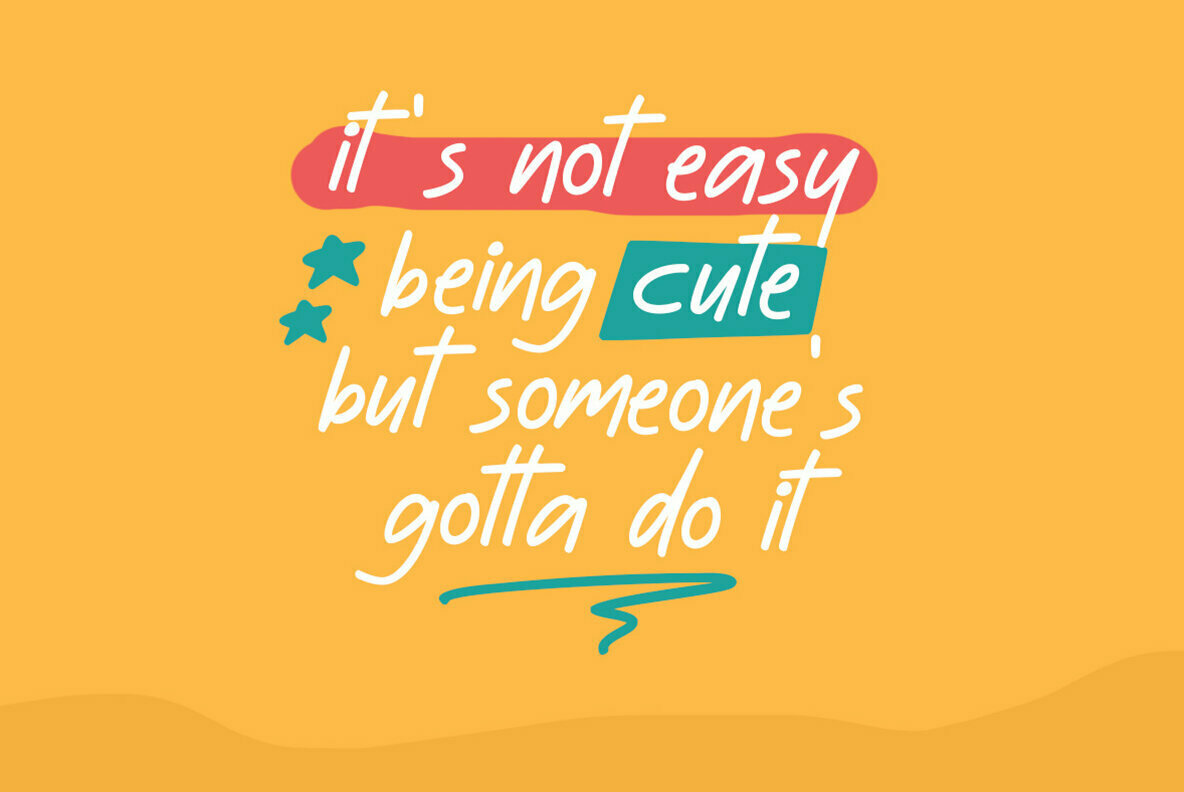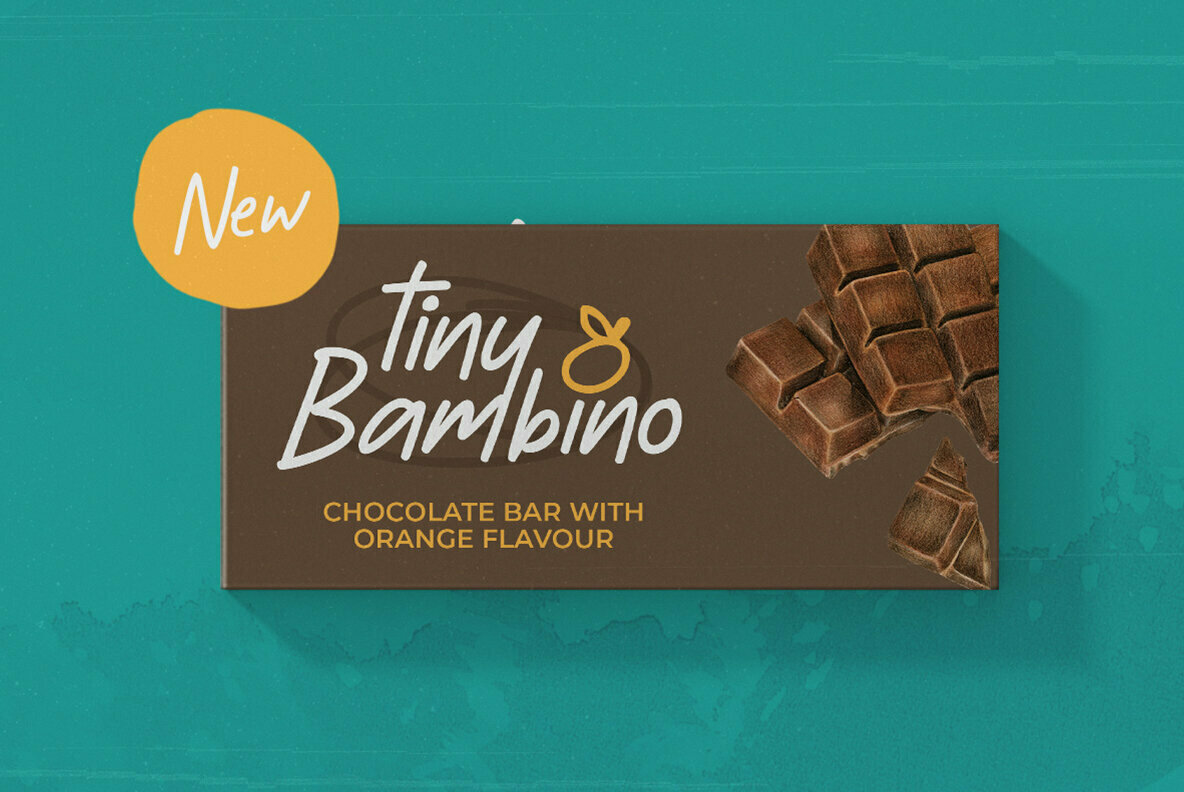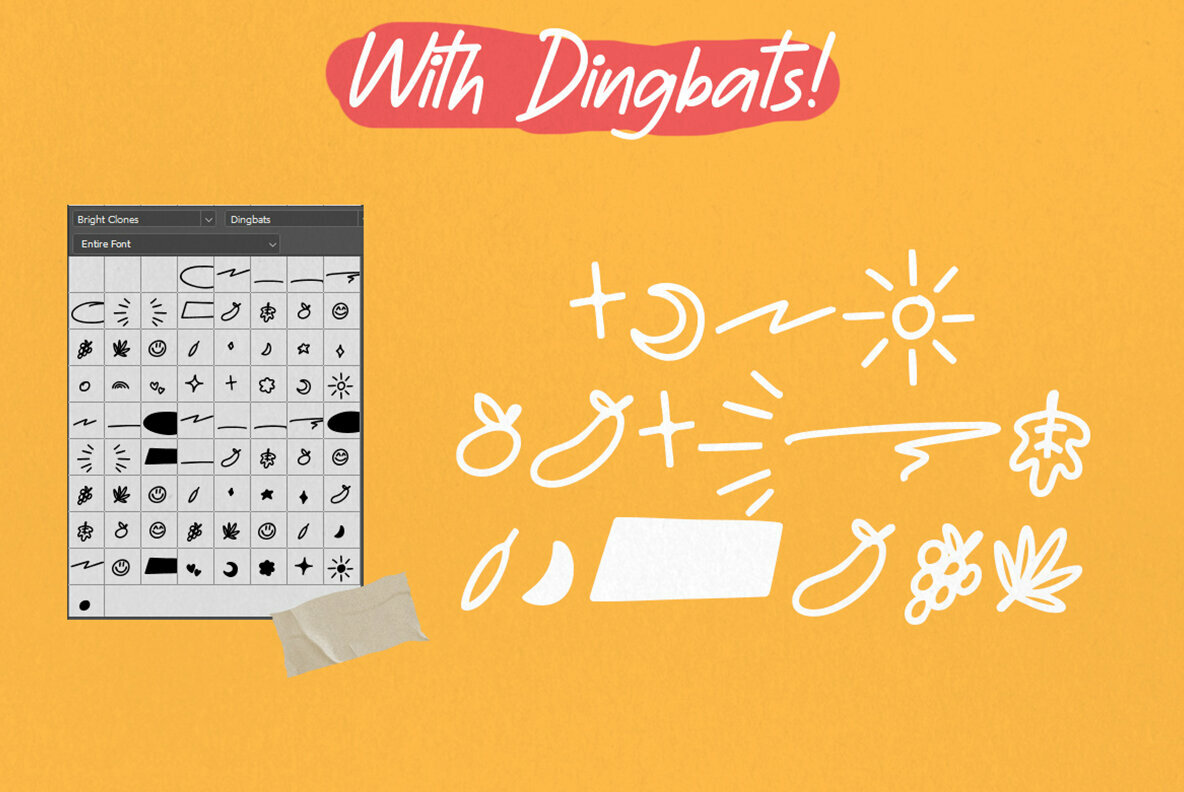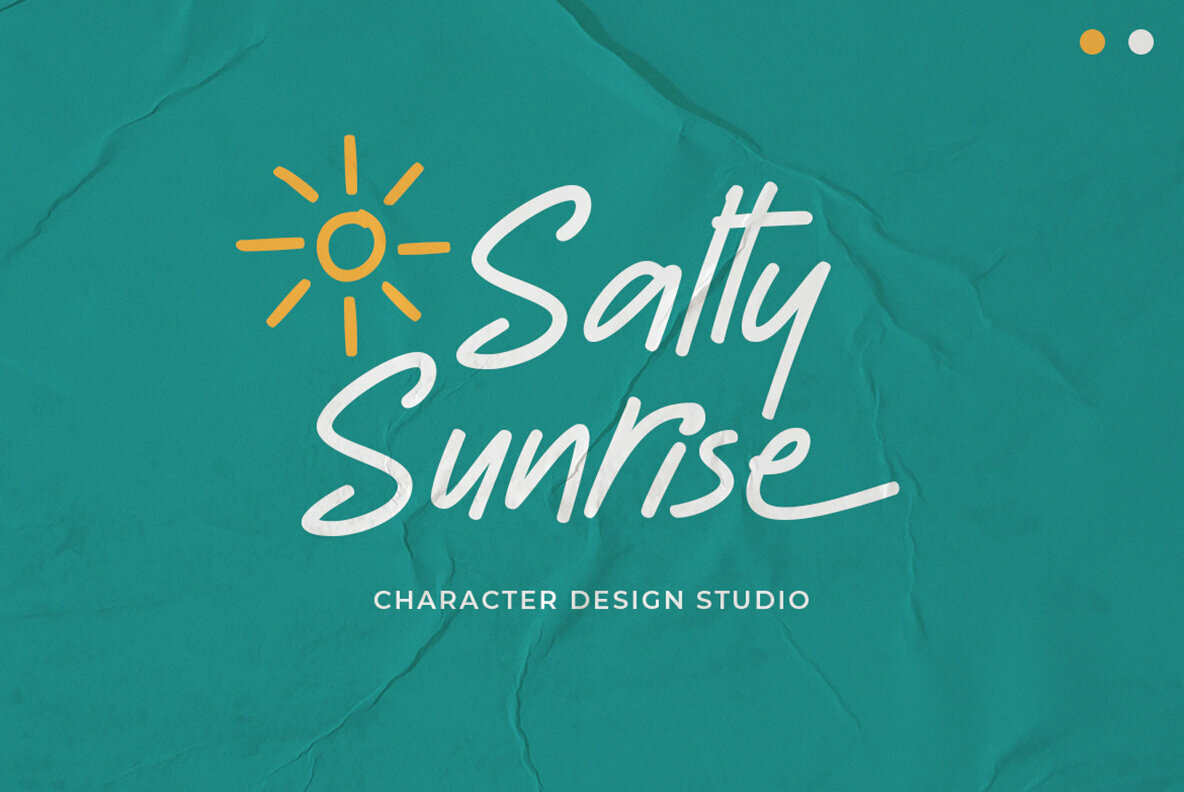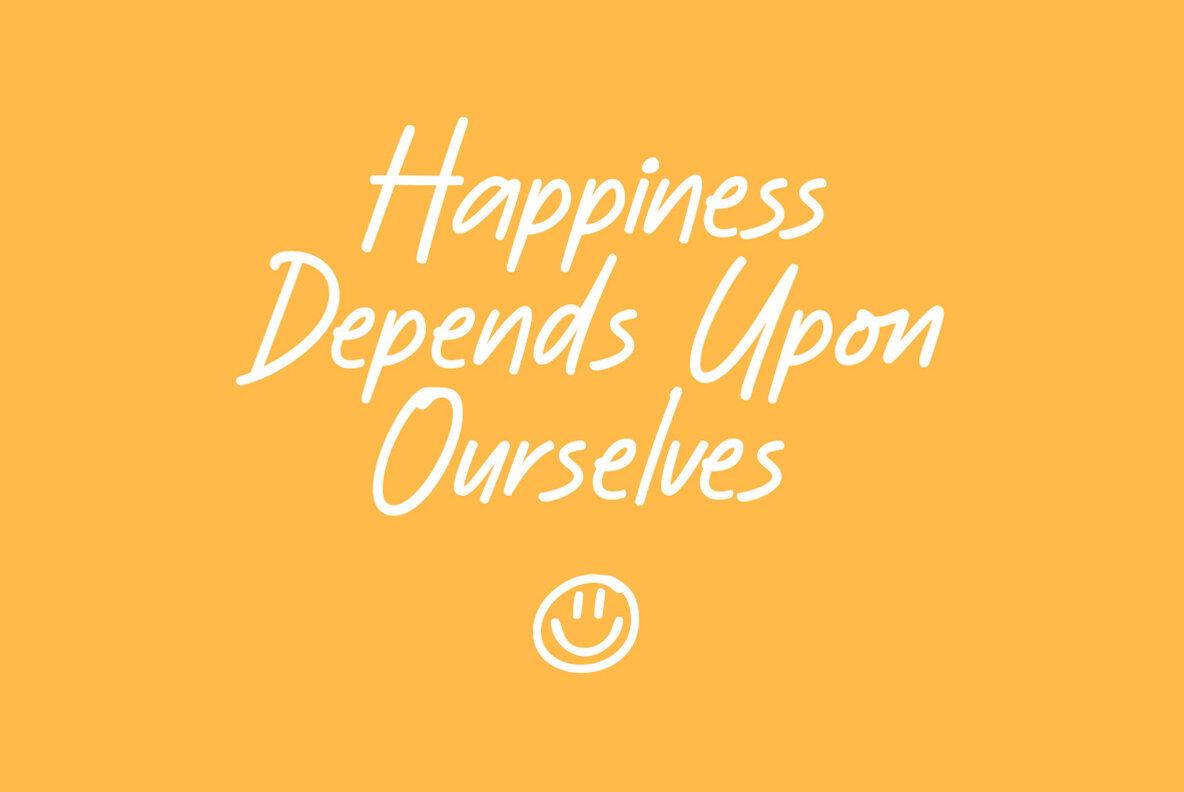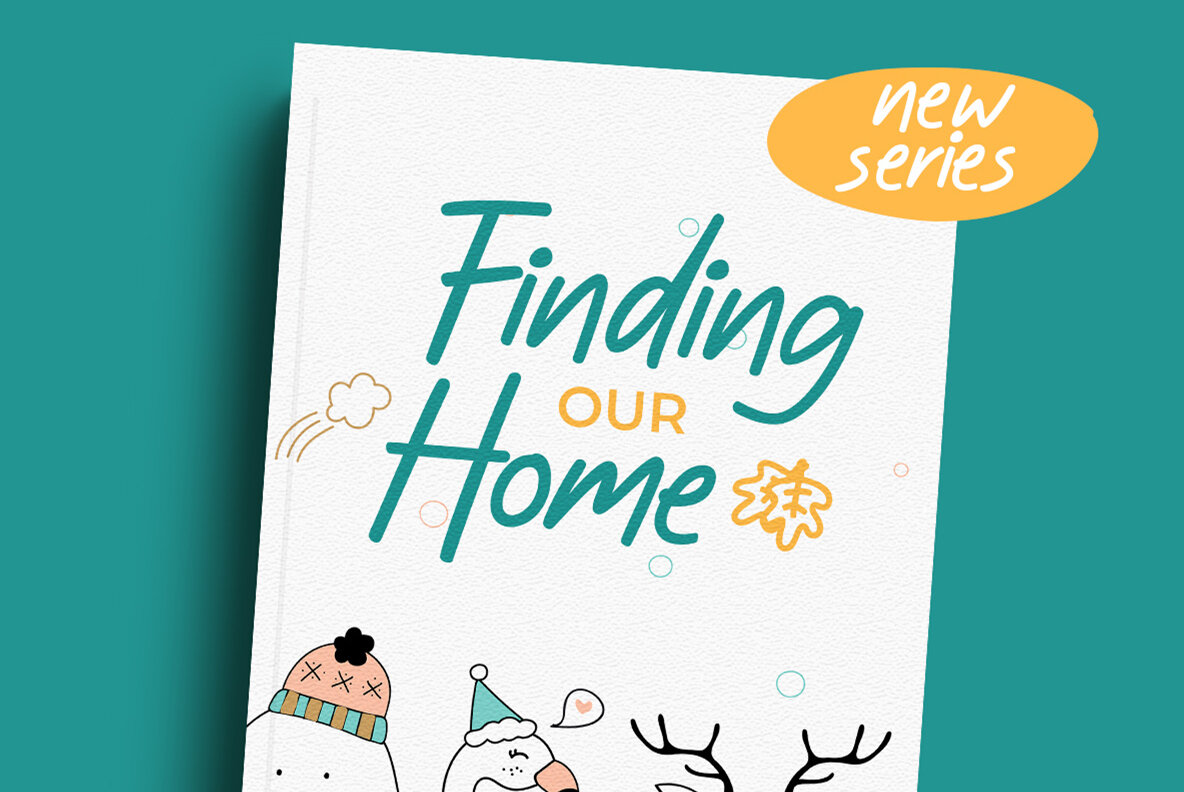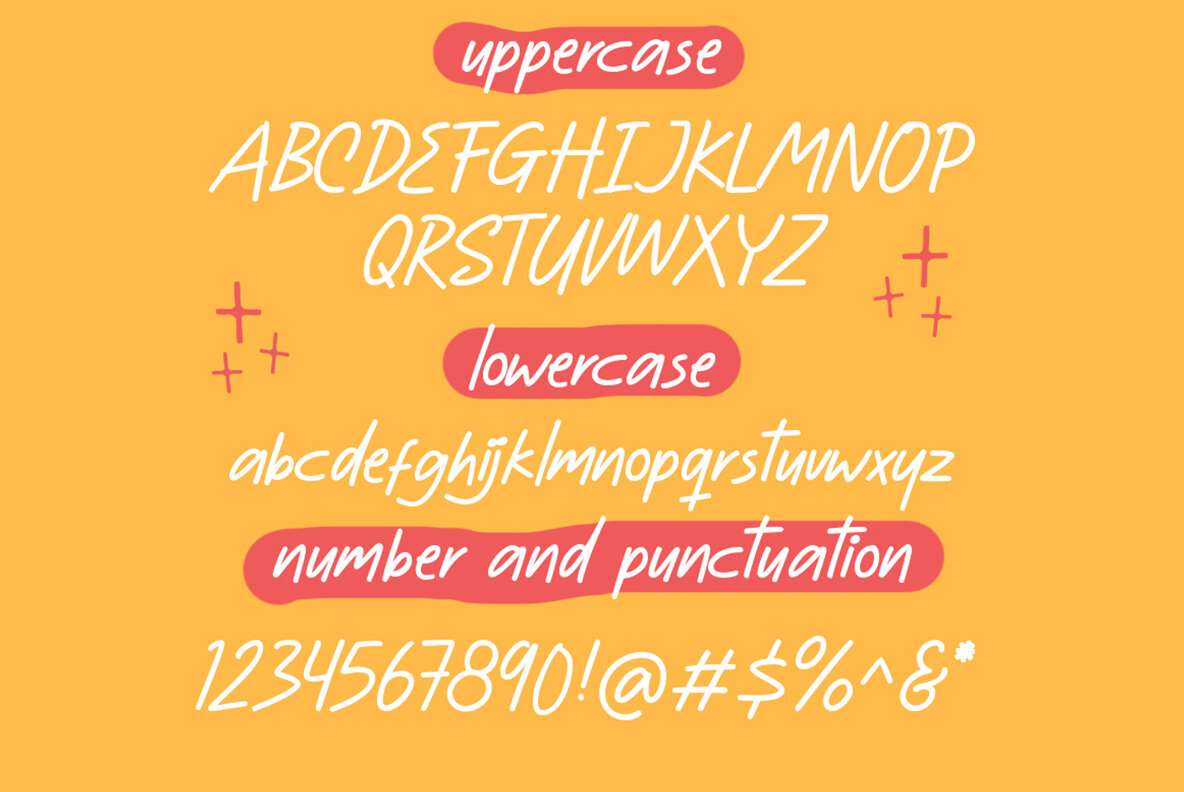
Bright Clones Font
Bright Clones Regular
Bright Clones Dingbats
Bright Clones by Letterhend Studio offers a distinctive handwritten style, ideal for enhancing branding and packaging. Its expressive character suits a variety of applications, including headlines and titles, bringing a personal touch to your design projects. To fully utilize Bright Clones, we recommend using software that supports OpenType features and glyphs, such as Adobe's suite or Corel Draw, for optimal typographic expression.Bright Clones: A Handcrafted Typeface for Impactful Designs